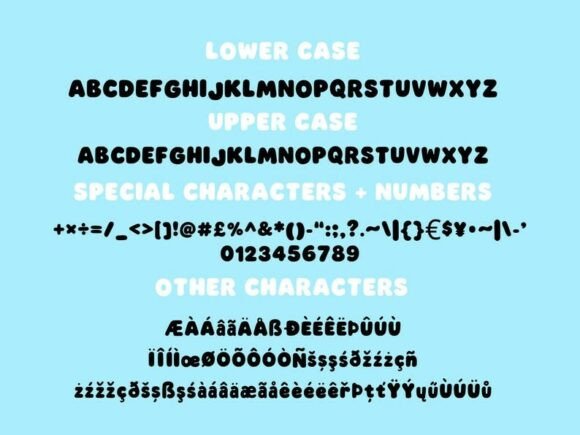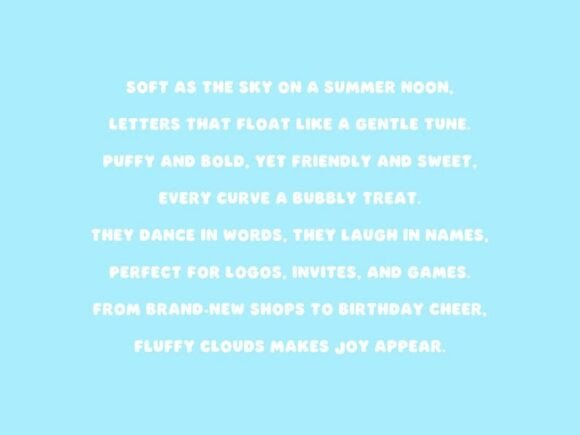
Introducing Fluffy Clouds Font: The Ultimate Addition to Your Design Collection
Are you tired of using the same old fonts in your designs? Look no further! We’re excited to introduce Fluffy Clouds, a bubbly handwritten typeface that’s sure to bring a touch of whimsy and joy to your creations. This delightful font is perfect for designers and crafters who want to add a dash of warm, jovial personality to their work.
The Charm of Fluffy Clouds
Every letter in the Fluffy Clouds font is brimming with charm. The soft, playful curves of this font are reminiscent of childhood memories, evoking feelings of happiness and carefree days. The unique and quirky design of Fluffy Clouds makes it perfect for a wide range of applications, from kids’ designs to party invitations, stickers, logos, and branding.
Fluffy Clouds font is incredibly versatile, making it suitable for various design projects. Here are some ideas to get you started:
- Kids’ designs: Add a playful touch to children’s books, educational materials, and activity sheets.
- Party invitations: Create eye-catching and festive invitations for birthday parties, baby showers, and other celebrations.
- Stickers and labels: Use Fluffy Clouds to add a fun and bubbly touch to stickers, labels, and other craft projects.
- Logos and branding: Give your brand a personality boost with this cheerful and approachable font.
- Packaging: Add a touch of whimsy to product packaging and make it stand out on store shelves.
Why Choose Fluffy Clouds Font?
So, what sets Fluffy Clouds apart from other fonts? Here are a few reasons why designers and crafters love this font:
- Unique and quirky design: Fluffy Clouds is a one-of-a-kind font that’s sure to grab attention.
- Playful and cheerful: This font is perfect for designs that require a lighthearted and fun touch.
- Easy to read: Despite its playful nature, Fluffy Clouds is surprisingly easy to read, making it suitable for body text and headings.
- Versatile: Use Fluffy Clouds for a wide range of design projects, from digital designs to print materials.
Tips for Using Fluffy Clouds Font
To get the most out of Fluffy Clouds, here are some tips to keep in mind:
- Pair with contrasting fonts: Combine Fluffy Clouds with a clean, sans-serif font to create visual interest and hierarchy.
- Experiment with colors: Fluffy Clouds looks great in bright, bold colors, but also try pairing it with pastel shades for a softer look.
- Don’t be afraid to get creative: Fluffy Clouds is a font that encourages creativity, so don’t be afraid to experiment and try new things.
Fluffy Clouds font is a delightful addition to any design collection. Its playful, whimsical design is sure to bring a touch of joy and personality to your creations. Whether you’re a designer, crafter, or DIY enthusiast, Fluffy Clouds is the perfect font for anyone looking to add a dash of warmth and humor to their designs. So why wait? Download Fluffy Clouds today and start creating your own magical designs!